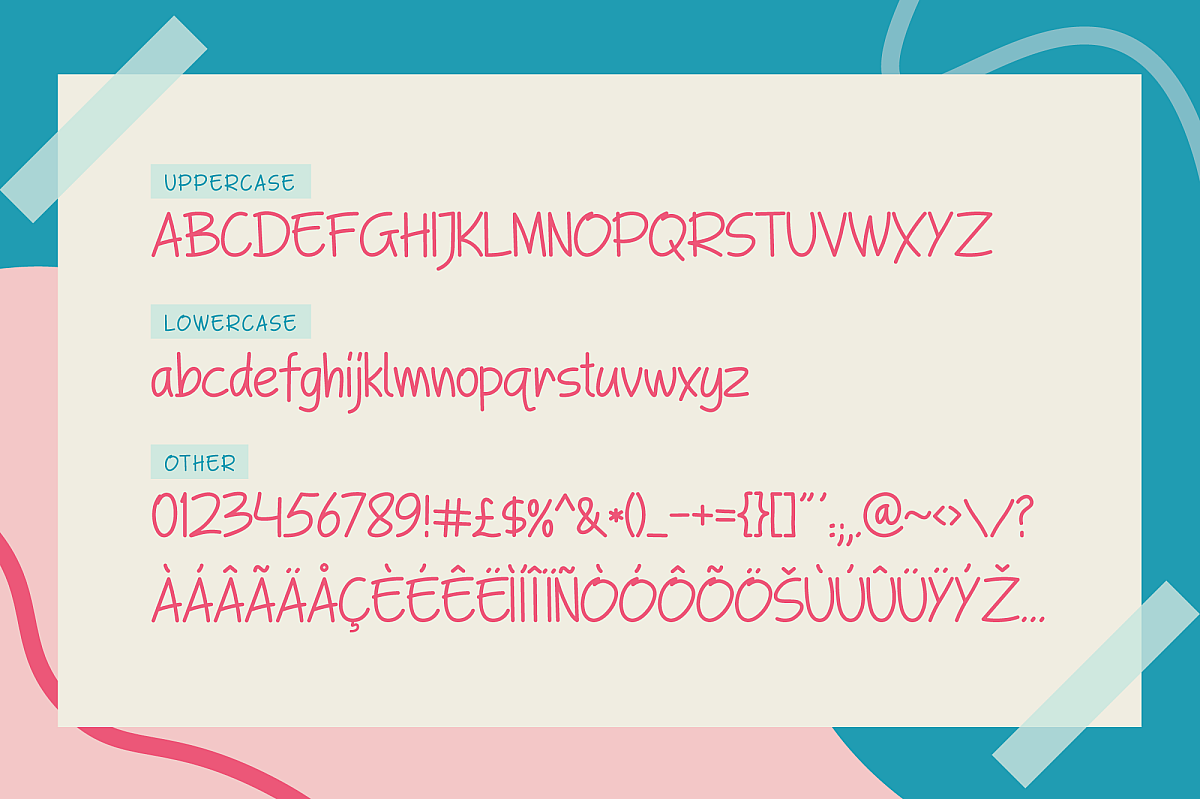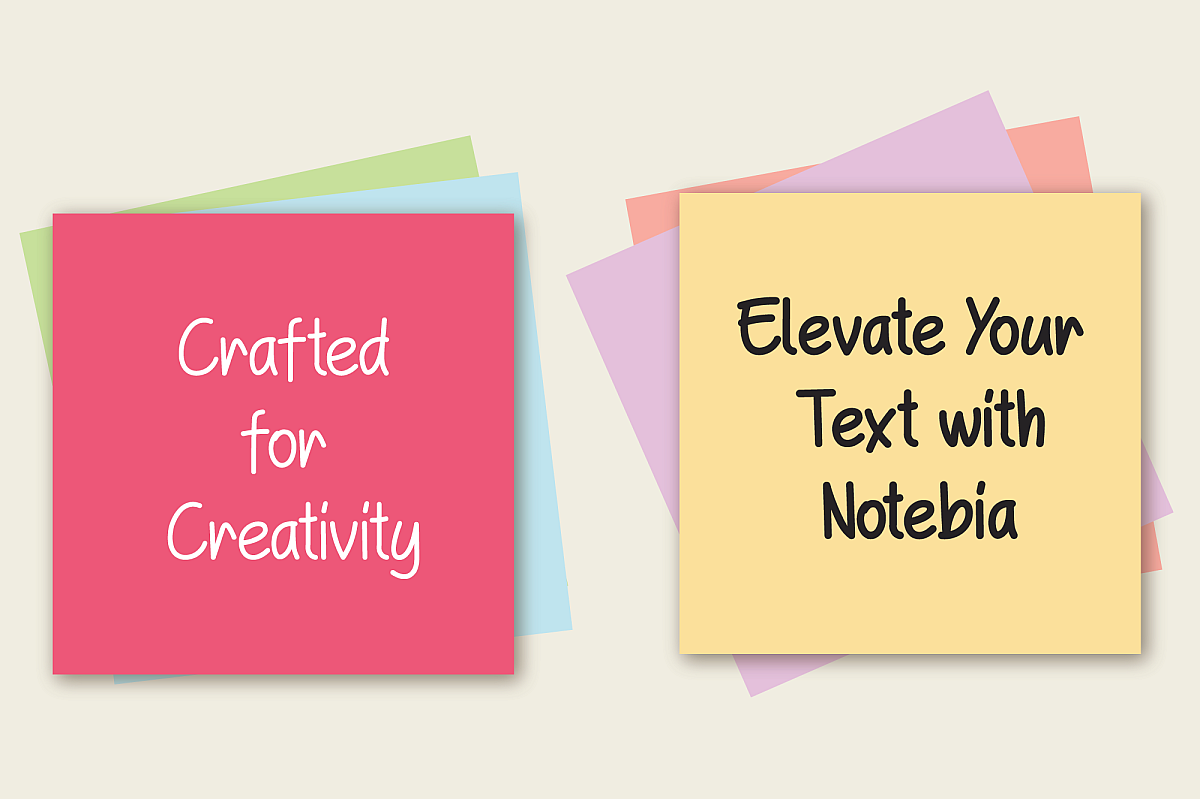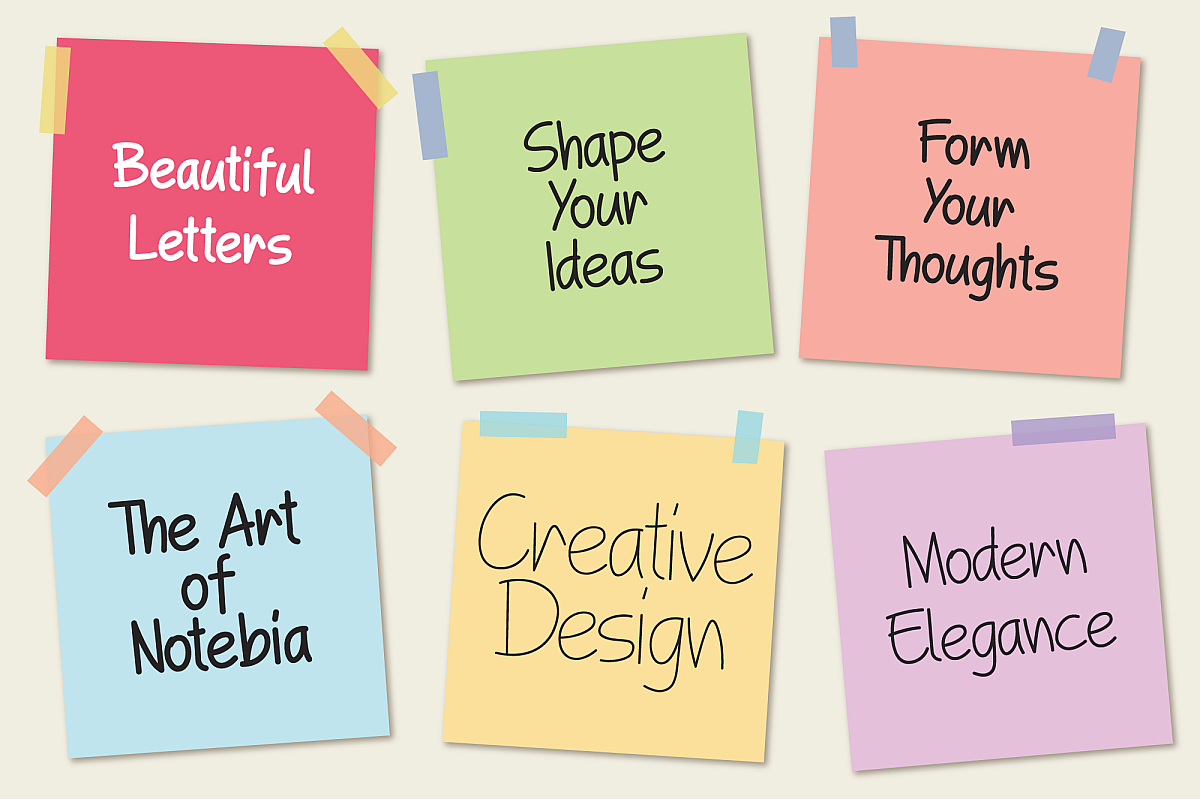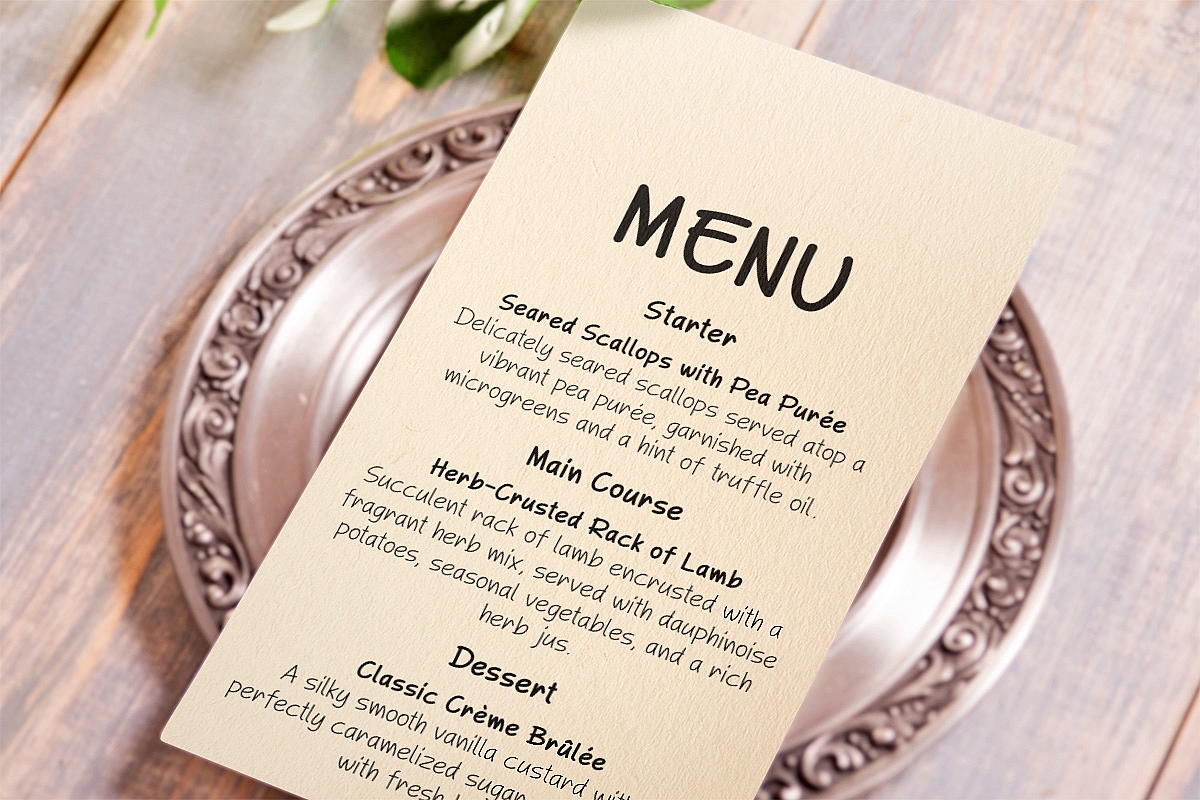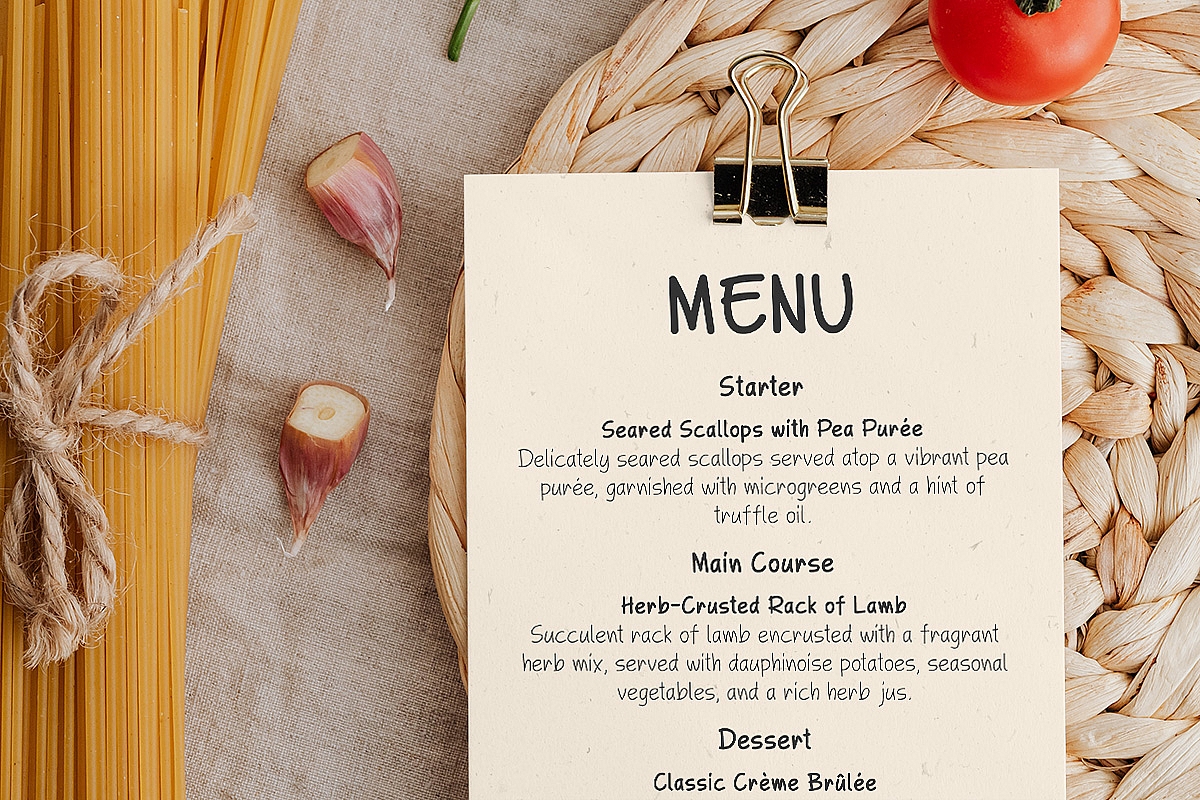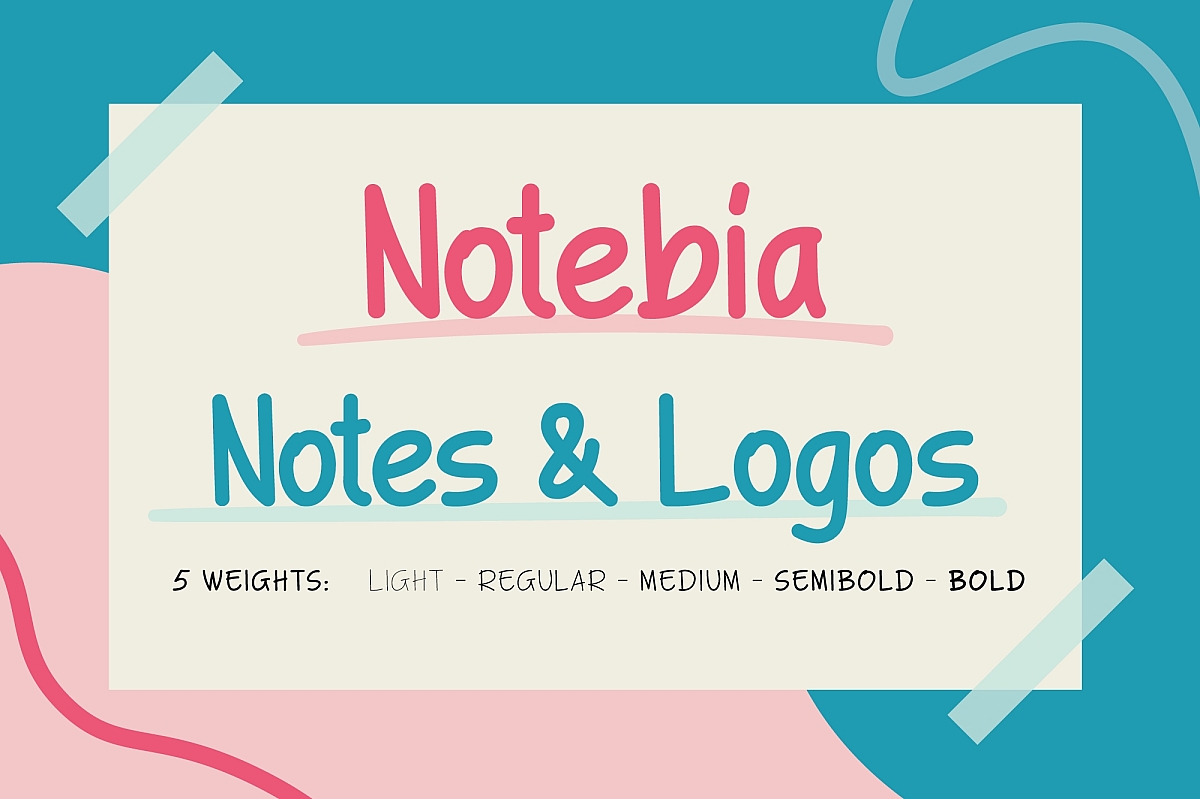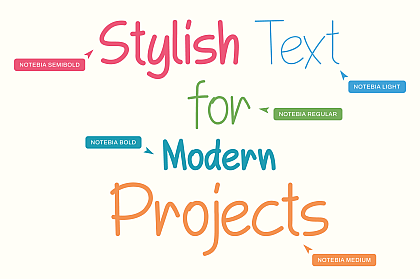
Notebia Handwritten Font
Unleash your creativity with Notebia, a charming handwritten font that brings a personal touch to every project. Inspired by the fluidity of natural handwriting, Notebia is perfect for adding warmth and authenticity to your designs. Whether you're crafting memorable logos, heartfelt notes, or inviting social media posts, Notebia's unique character and organic feel will captivate your audience.
With its smooth curves and playful strokes, Notebia is designed to mimic the effortless elegance of a handwritten note. This versatile font is ideal for a wide range of applications, from branding and packaging to party invitations and inspirational quotes. Its legibility and stylish aesthetic make it a go-to choice for both professional designers and hobbyists alike.
Elevate your creative projects with Notebia and let your designs speak with a personal touch.
Key Features:
• Handwritten Style: Emulates natural handwriting for an authentic feel.
• Versatile Usage: Perfect for logo design, notes, social media graphics, and more.
• Warm & Inviting: Adds a personal, heartfelt touch to any project.
• Easy to Read: Combines elegance with legibility for various design needs.
Ideal For:
• Logo Design
• Personal Notes & Letters
• Social Media Posts
• Invitations
• Inspirational Quotes
• Branding & Packaging
Embrace the charm of Notebia and let your designs tell a story with every stroke.